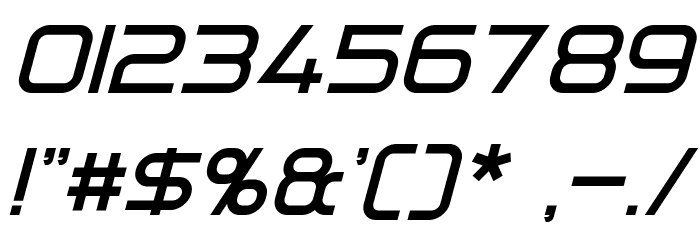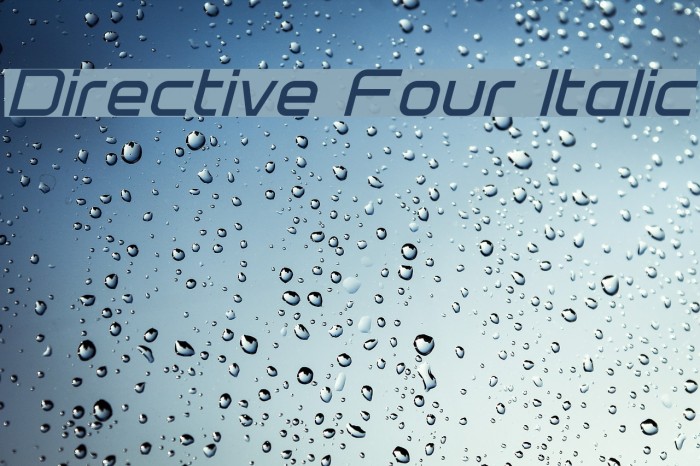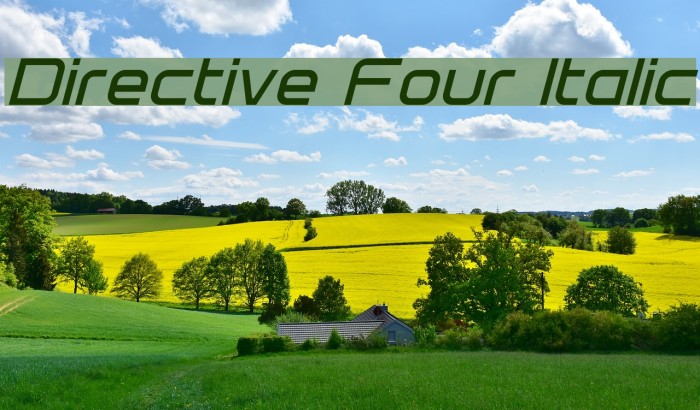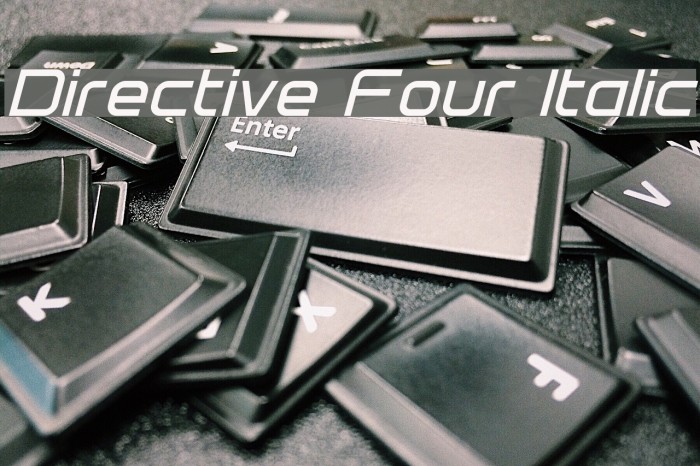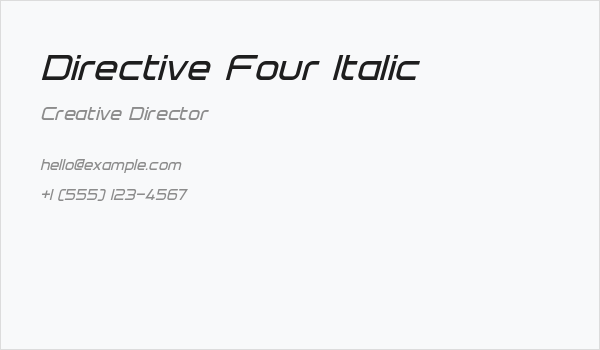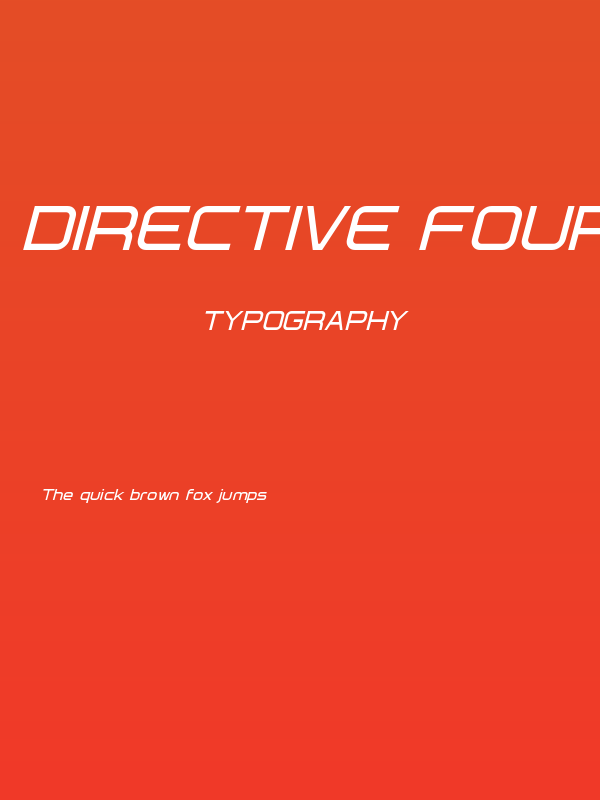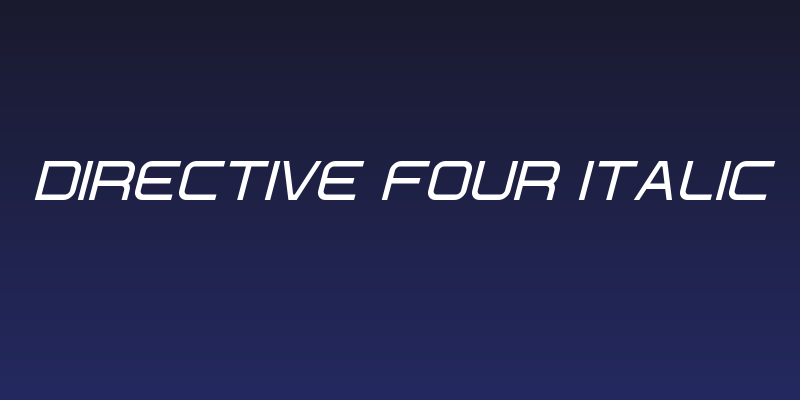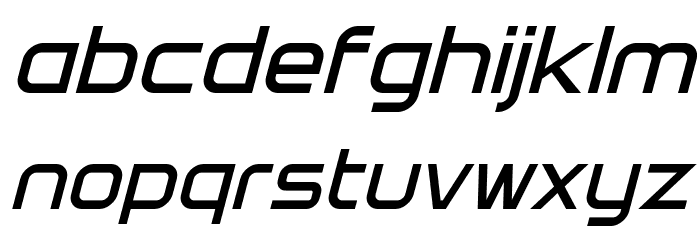
Directive Four Italic Font
Directive Four Italic Description
This font exhibits a sleek and modern design with a distinct italic slant, giving it a dynamic and forward-moving appearance. The characters are crafted with precision, featuring clean lines and smooth curves that enhance readability while maintaining a stylish edge. The uppercase and lowercase letters are well-proportioned, with a consistent stroke width that adds to the uniformity of the font. The numerals are clear and legible, making them suitable for various applications. Special characters are included, maintaining the same aesthetic consistency. This font is ideal for projects that require a contemporary and professional look.
| Use Case | Headlines, Logos, Digital Media |
| Proposed Projects | Ideal for branding, advertising, digital media, and modern web design projects. |